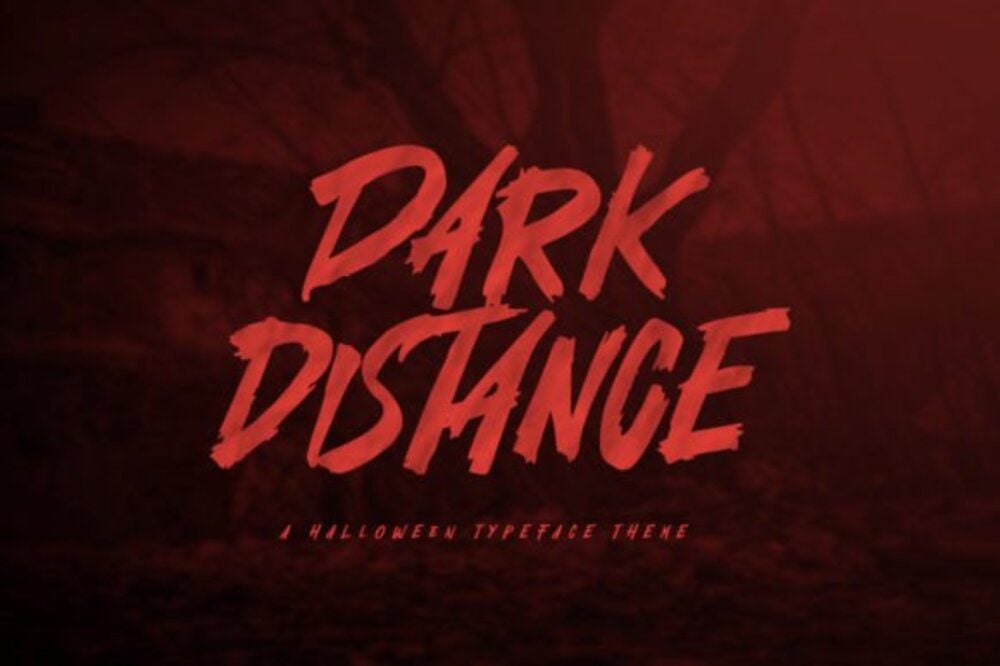
Dark Distance Font
Dark Distance is a bold and mysterious font with a gritty, futuristic vibe. Its sharp edges and rugged texture make it perfect for sci-fi themes, gaming graphics, or edgy poster designs. Evoking a sense of intrigue and intensity, Dark Distance brings a dramatic, otherworldly feel to your projects, making it ideal for creating striking, memorable visuals.